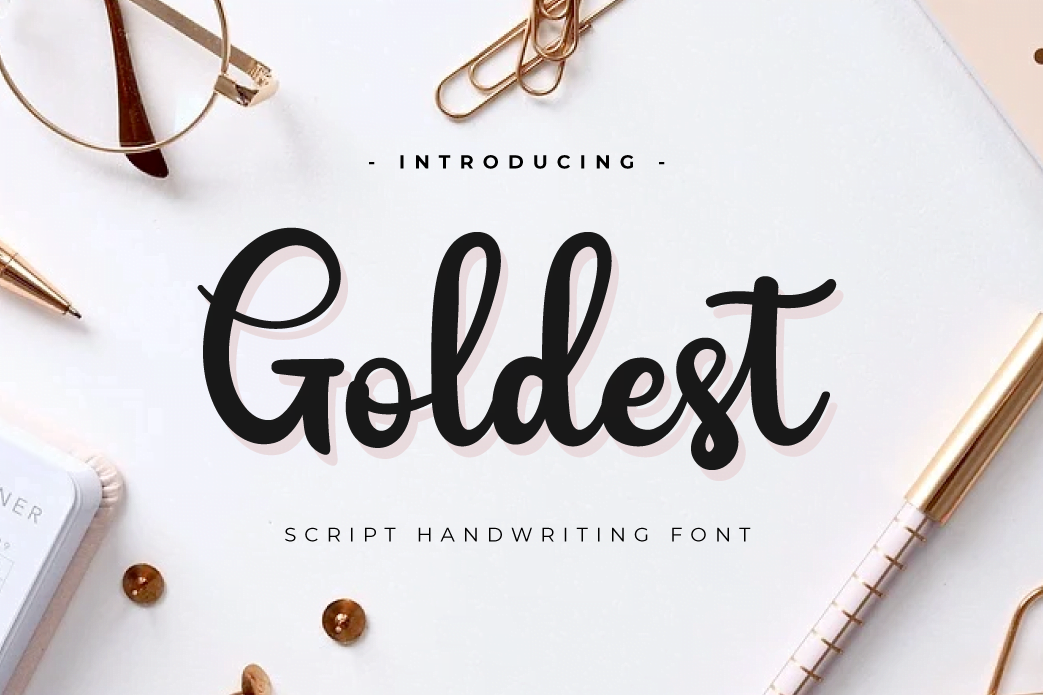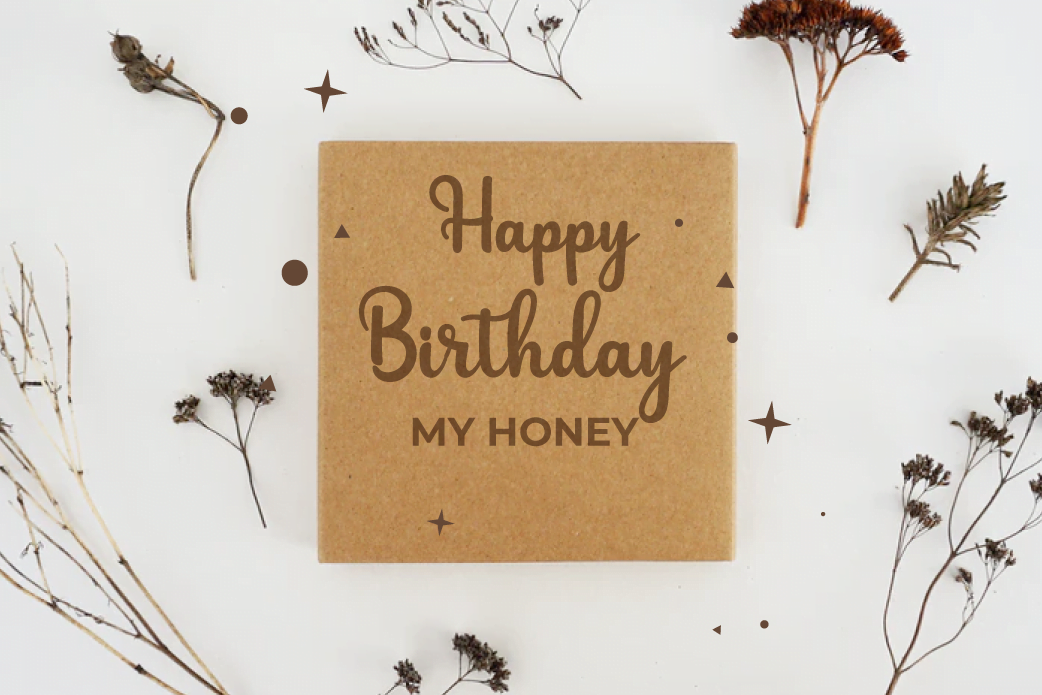
Goldest
Introduces “Goldest” font which is created in detail to meet the needs of a charming, elegant and modern design. Using this font creates harmony and beauty in each of your designs, especially designs that require a touch of natural handwriting
This font is designed with a natural touch of handwriting which is refined to create a portion and composition that suits your needs. So this font is suitable for craft, children’s writing, adventure posters, food banner titles, wedding invitations, product packaging logos, quotes, social media page covers, furniture banner headlines, book covers, and much more.